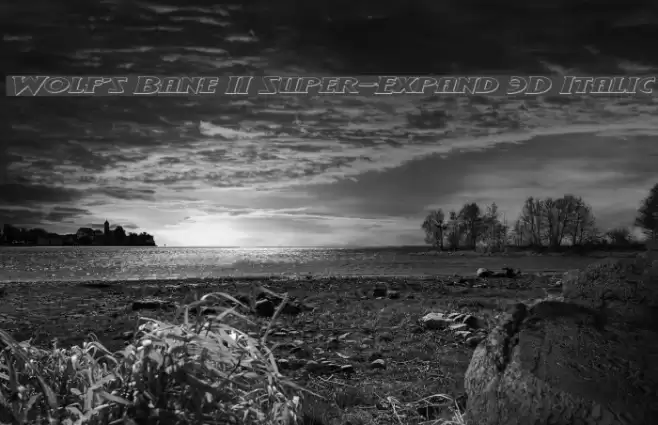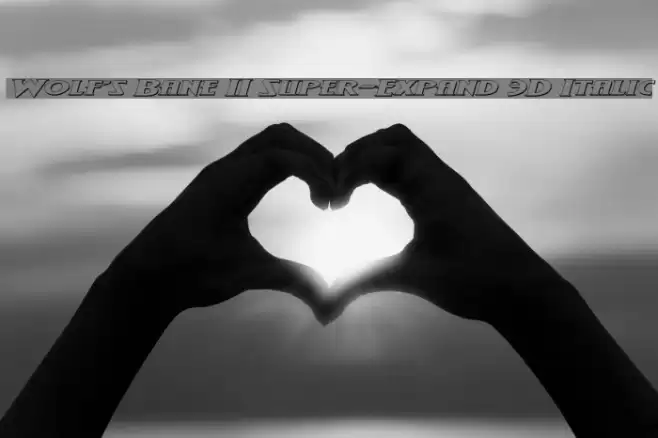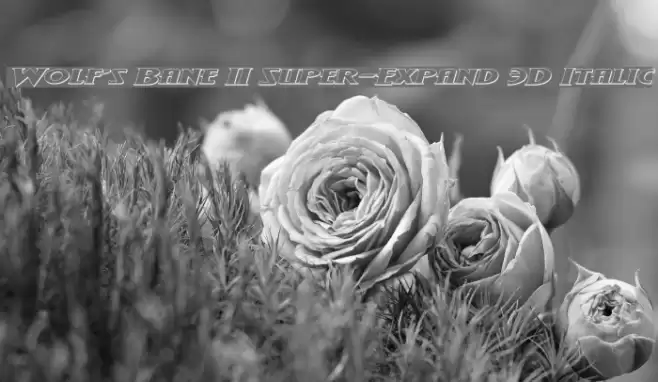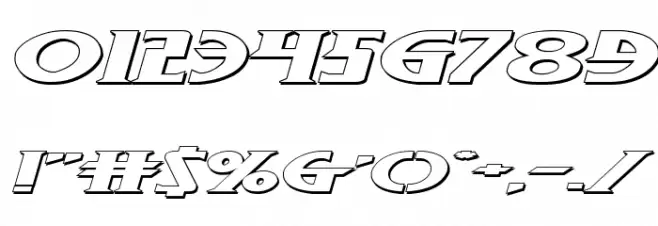
Wolf's Bane II Super-Expand 3D Italic Font
Wolf's Bane II Super-Expand 3D Italic Description
This font features a bold, three-dimensional design with an italic slant, giving it a dynamic and modern appearance. The characters are outlined, creating a sense of depth and movement. The style is reminiscent of futuristic or sci-fi themes, making it suitable for projects that require a strong visual impact. The uppercase letters are particularly striking, with sharp angles and a sense of motion. The numbers and special characters maintain the same bold and italicized style, ensuring consistency across all text elements.
A bold, 3D italic font with a futuristic and dynamic style from Retro fonts.
- Proposed Projects: Ideal for sci-fi movie posters, video game titles, and tech-themed branding.
- Width: Expanded